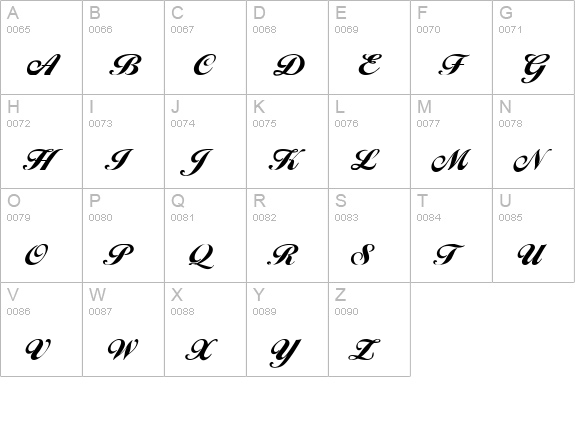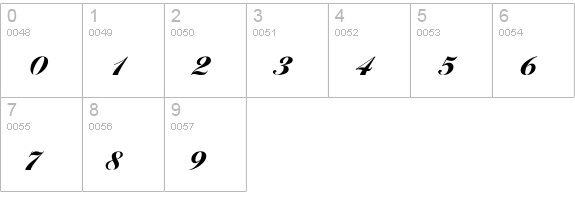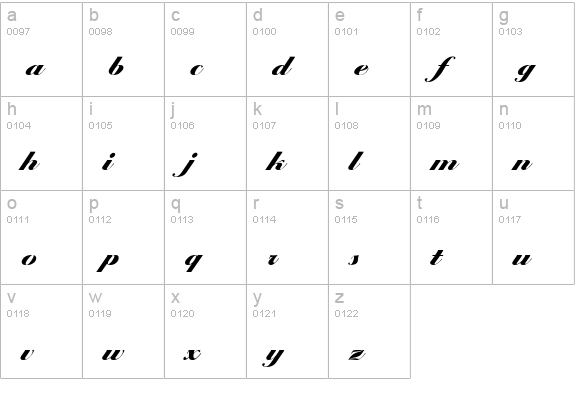
Progena Script SSi font is a beautifully crafted typeface designed to bring elegance and sophistication to your projects. With its flowing and graceful curves, this font exudes a sense of timeless charm and sophistication. Perfect for adding a touch of class to invitations, wedding stationery, logos, and more. The best part about Progena Script SSi font is that it is available for free download at FontsMarket.com. This means you can easily access this stunning font without any cost, making it a valuable addition to your font collection. Don't miss out on the opportunity to enhance your designs with this exquisite typeface. Download Progena Script SSi font today and elevate your creations to new levels of elegance and style.